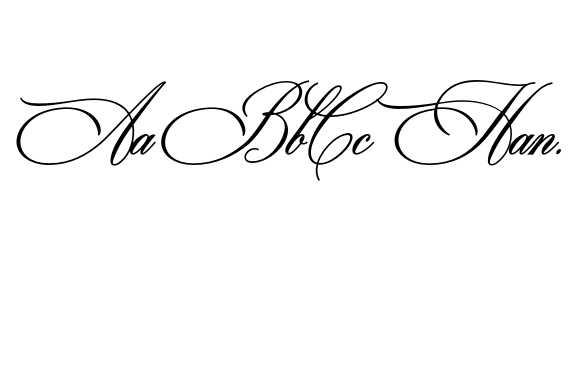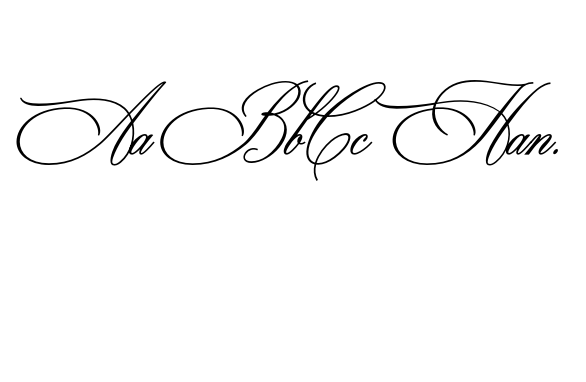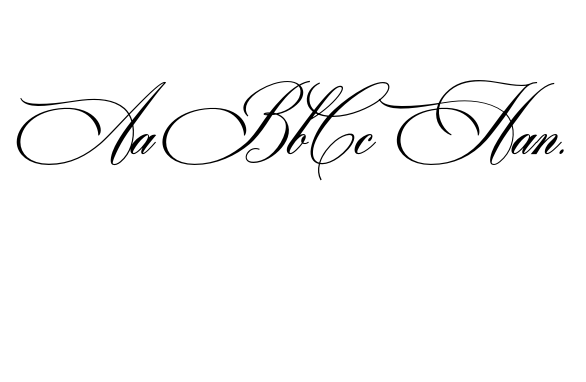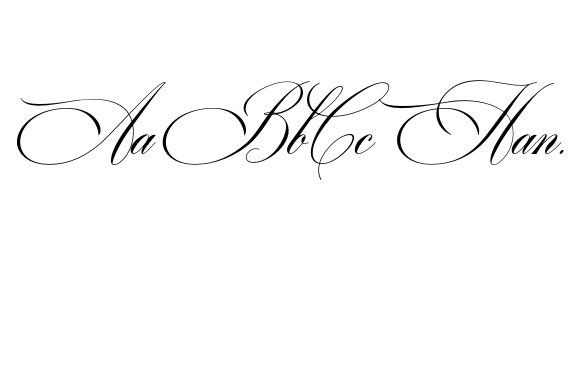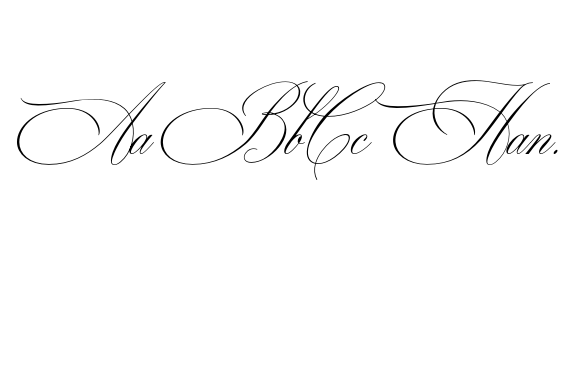
Ecatherina
by BlessedPrint
The Ecatherina Font Family was designed by Dmitrii Mikitenko and published by BlessedPrint. Ecatherina contains 15 styles and family package options.
Hi! It took me almost a year to design Ecatherina script. Finally it is available to purchase! Ecatherina script is an opentype font-family (15 fonts: 5 styles for 3 line thickness) with a bonus (editable wedding invitations, menu, quotes, letters, and more)
BP-Ecatherina OTF & TTF It goes with 5 weights: Thin, Medium, Regular, Bold, UltraBold
BP-Ecatherina-Ex1 The only difference between previous font is that thin line is a bit thicker.
BP-Ecatherina-Ex2 Even more thicker line.